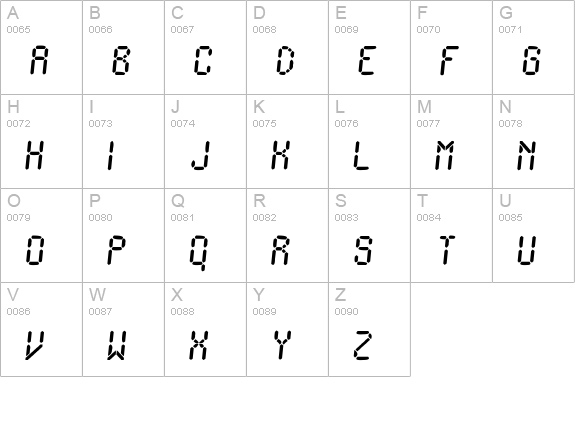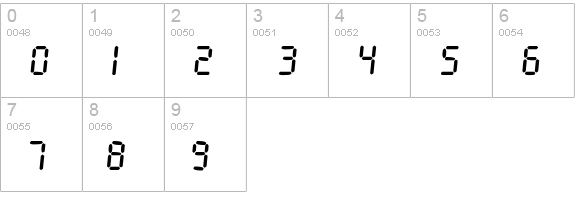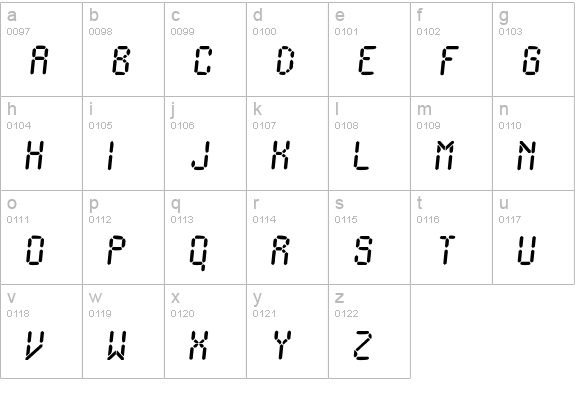
The Ionic Charge font is a stunning display typeface that exudes a sense of power and energy. Its sharp lines and bold design make it perfect for creating impactful headlines and titles. With its unique blend of modern and classic elements, Ionic Charge is sure to make a statement in any design project. Best of all, Ionic Charge is available for free download at FontsMarket.com. This means you can easily add this striking font to your collection without any cost. Don't miss out on the opportunity to enhance your designs with the dynamic style of Ionic Charge - download it today and let your creativity shine!